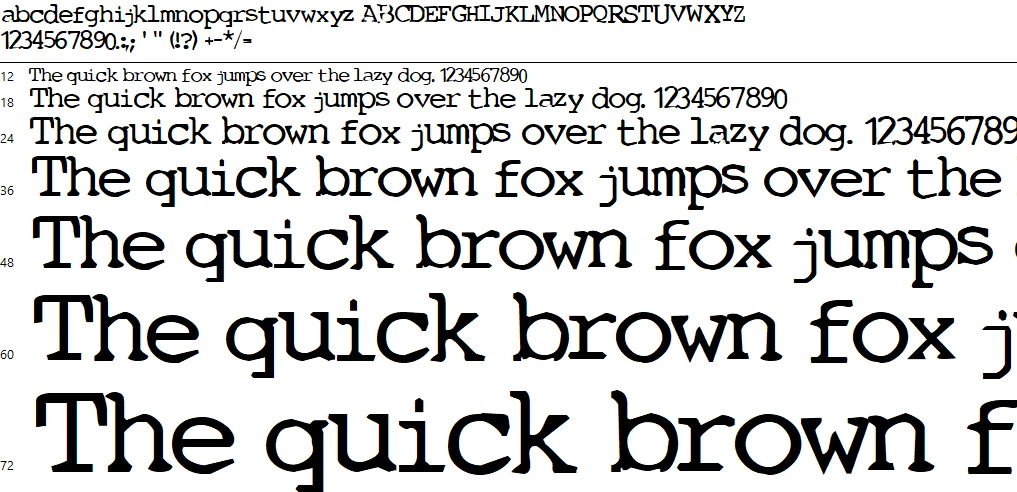
There are a lot of fonts for type design nowadays, but the most popular of these is Conspiracy. So today we will discuss with you the guts of this font.
Conspiracy is a Display typeface font designed by Nerfect Type Laboratories. With three styles and 115 glyphs, Conspiracy is now the most popular among the typewriters. With an elegant look, this font has huge language support. Silvery Tarjey Font, Trashtype, and Gabriele are mostly similar to Conspiracy font.
| Style | Display, Serif |
| Author | Nerfect Type Laboratories. |
What type of font is Conspiracy?
Ans: Conspiracy One is a Display type-writting font designed byNerfect Type Laboratories.
Is there any font similar to Conspiracy in Google Fonts?
Ans: Special Elite is a google font that is similar to Conspiracy.